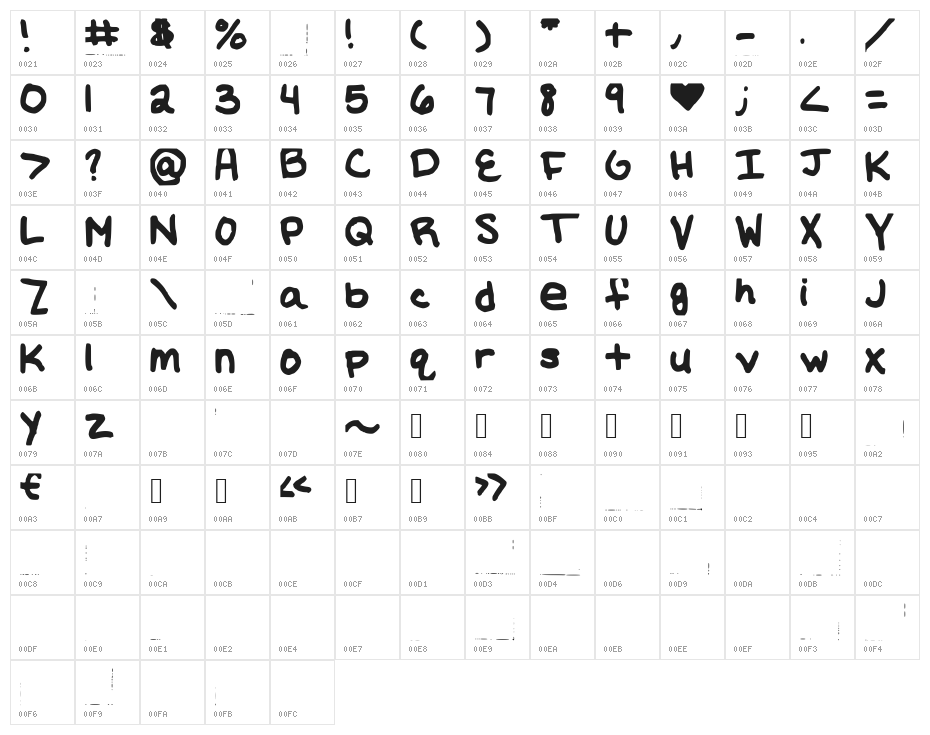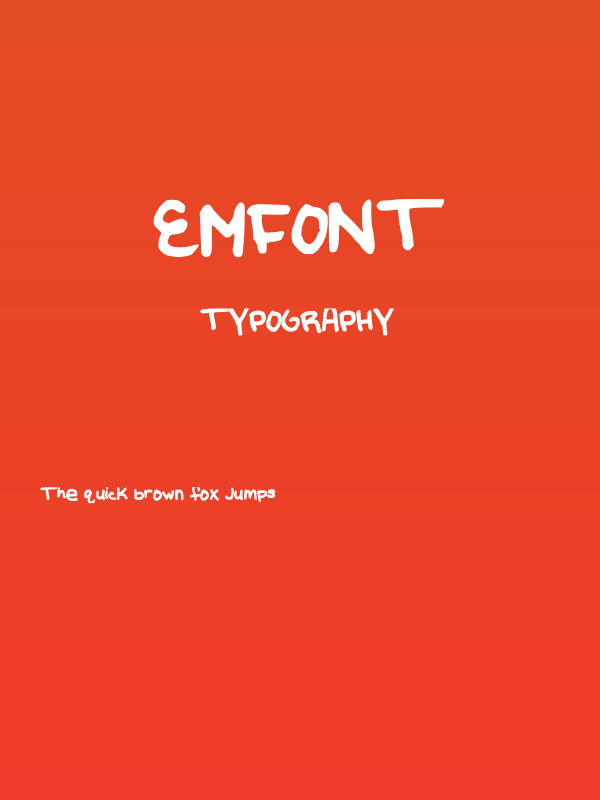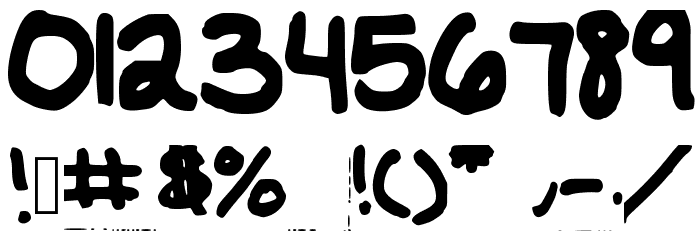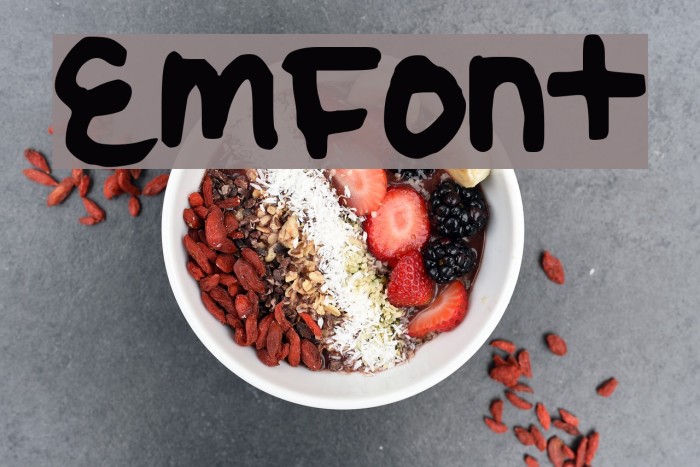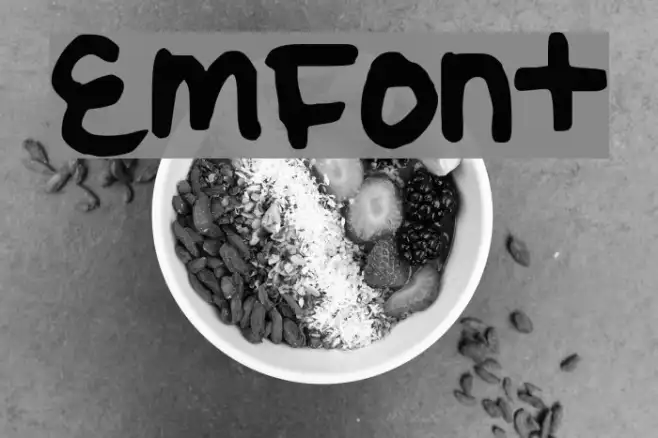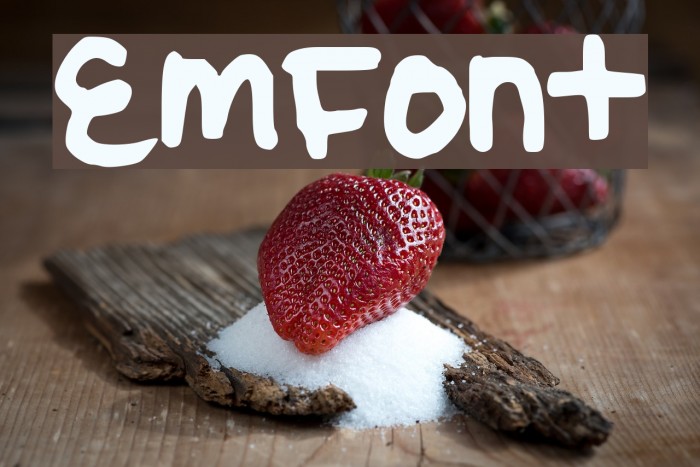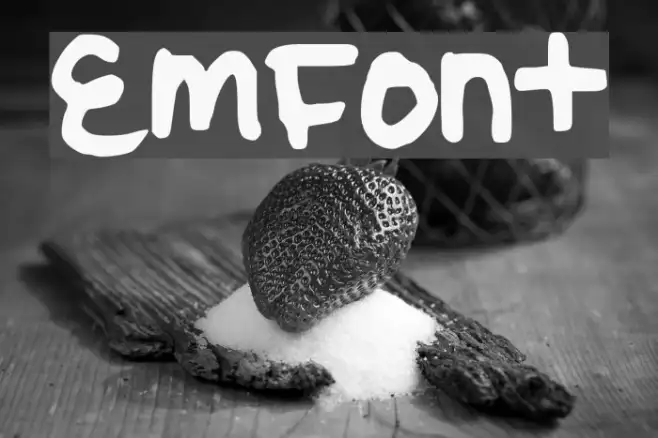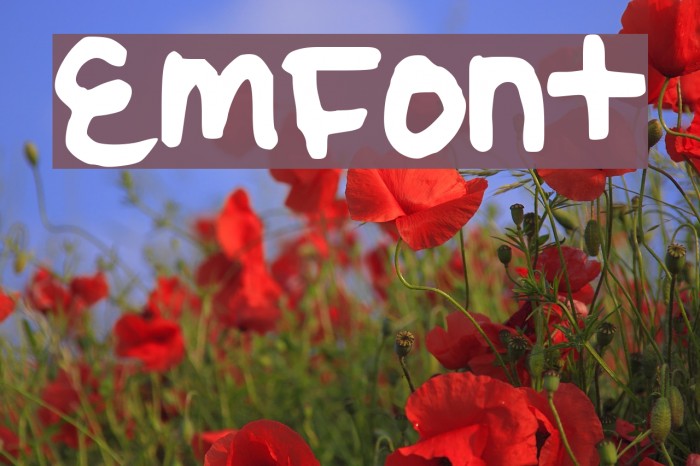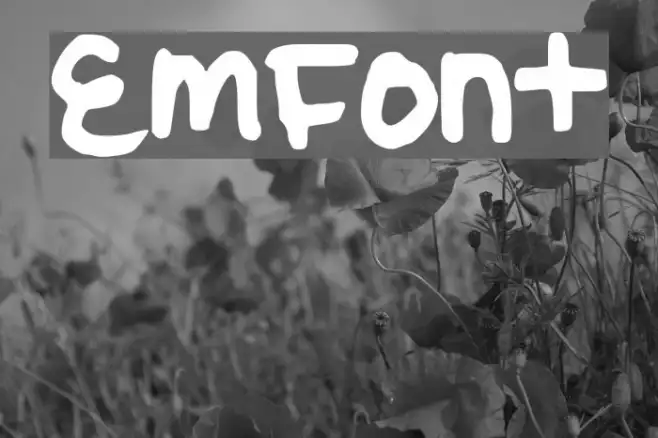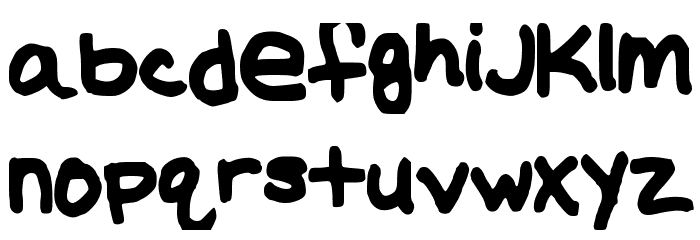
EmFont Font
EmFont Description
This font features a playful and casual handwritten style, characterized by its bold and rounded letterforms. The strokes are thick and consistent, giving it a strong presence on the page. The characters have a slightly irregular baseline, adding to the informal and friendly appearance. The uppercase and lowercase letters maintain a uniform thickness, while the numerals and special characters complement the overall style with their bold and rounded shapes. This font is ideal for projects that require a fun and approachable aesthetic.
| Proposed Projects | Perfect for children's books, casual branding, greeting cards, and playful posters. |